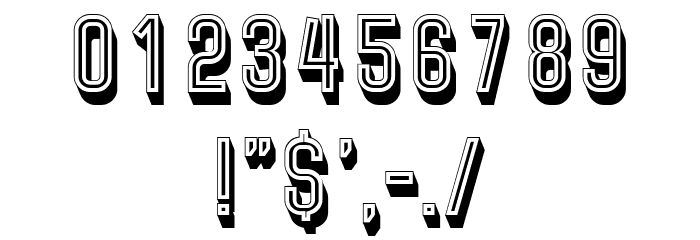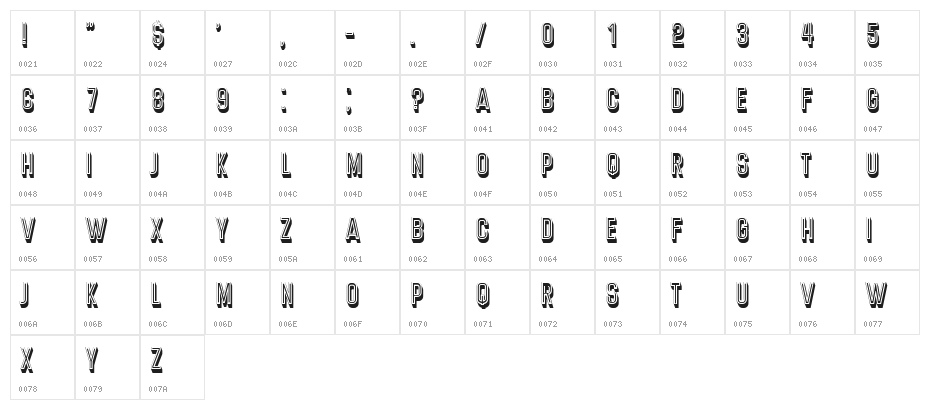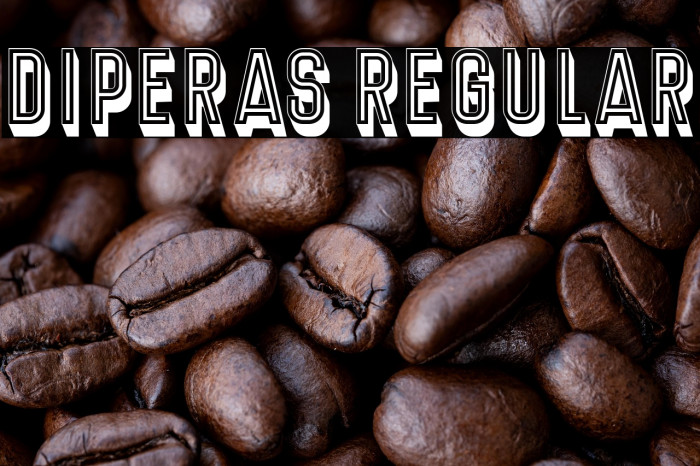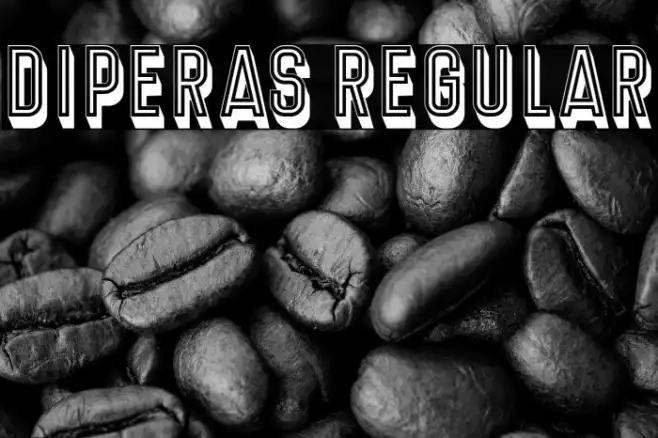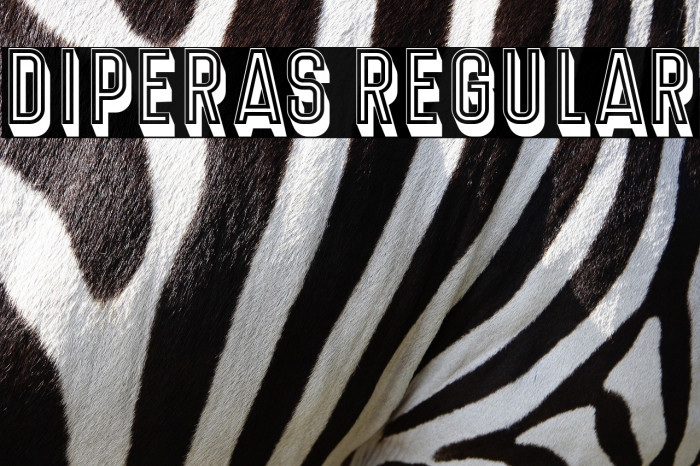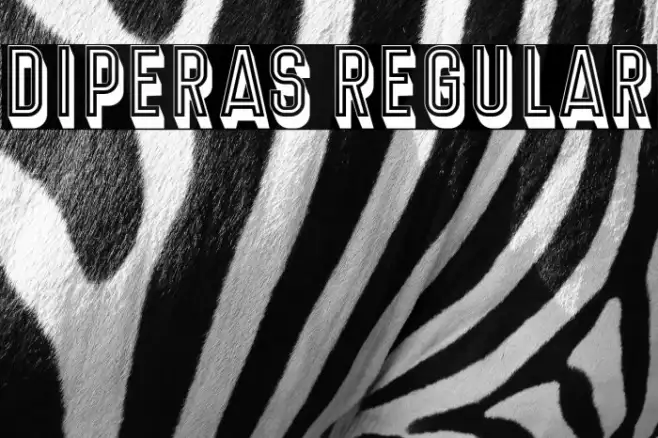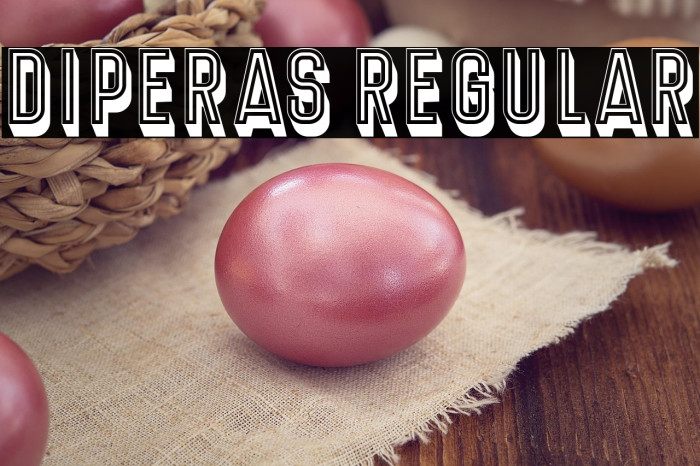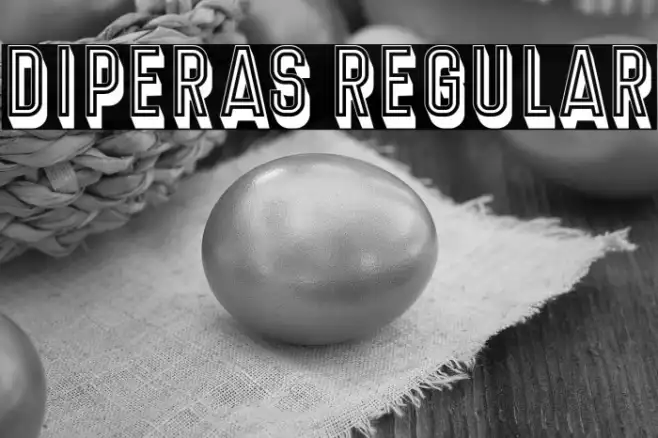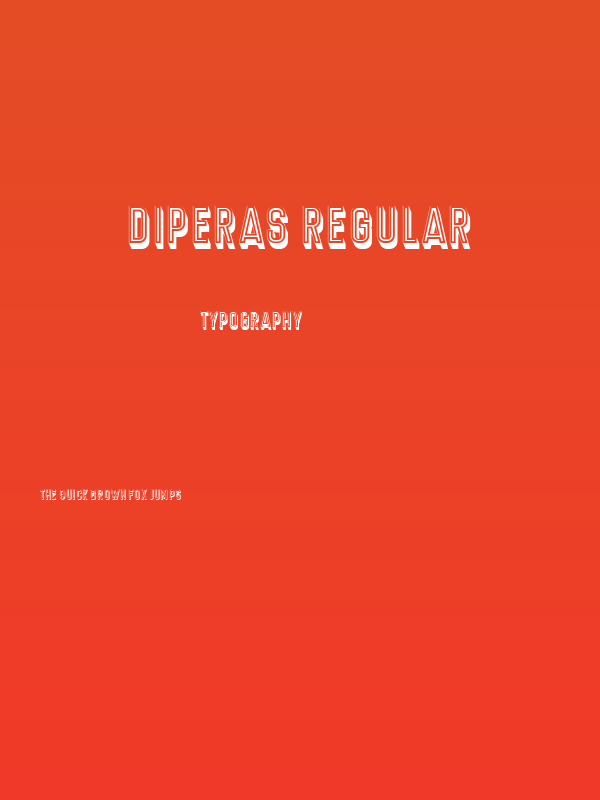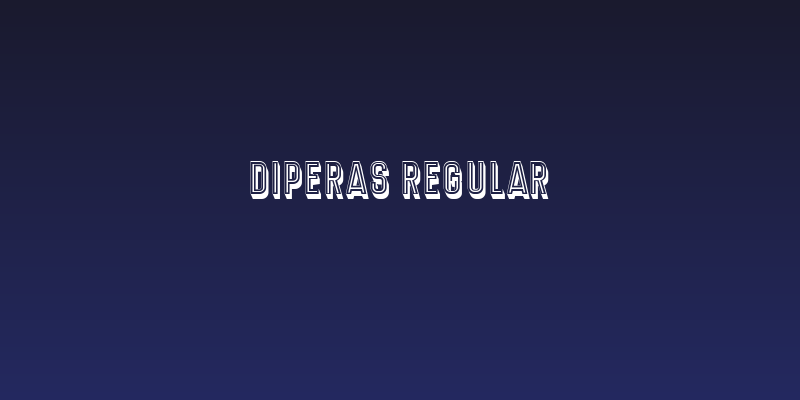
Diperas Regular Font
Diperas Regular Description
This font features a bold, three-dimensional design with a strong shadow effect that gives it a striking and impactful appearance. The uppercase letters are crafted with precision, showcasing a geometric style that is both modern and dynamic. The characters are outlined, adding depth and a sense of movement, making them stand out prominently. The numbers and special characters follow the same design principles, ensuring consistency across all elements. This font is ideal for projects that require a bold statement and a contemporary feel.
| Proposed Projects | Ideal for posters, headlines, branding, and any design that requires a bold and modern statement. |